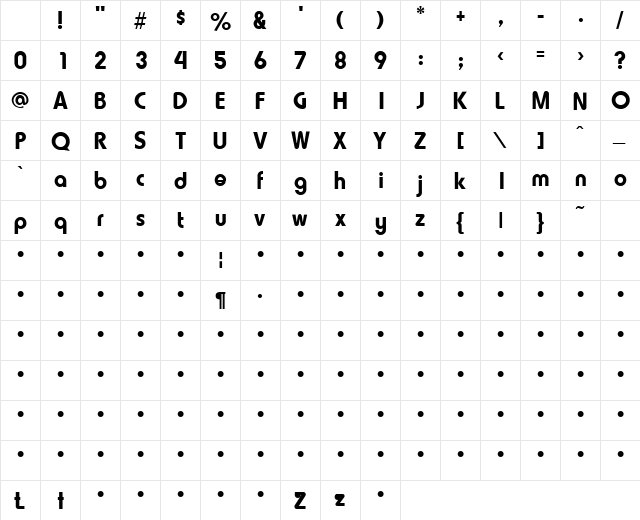
Complete QTHowardTypeFat Regular glyph index. Displaying only characters natively supported by QTHowardTypeFat Regular font.
QTHowardTypeFat is a composed and adaptable typeface that performs quietly and consistently across a wide range of design contexts.